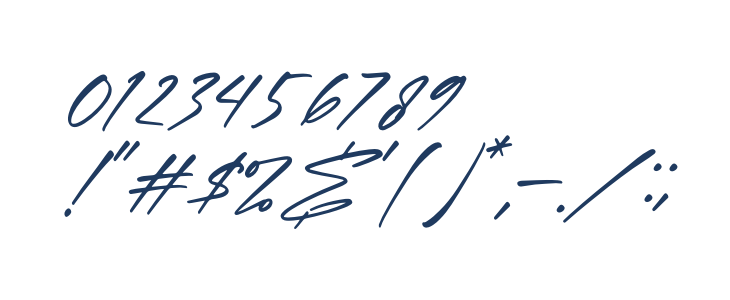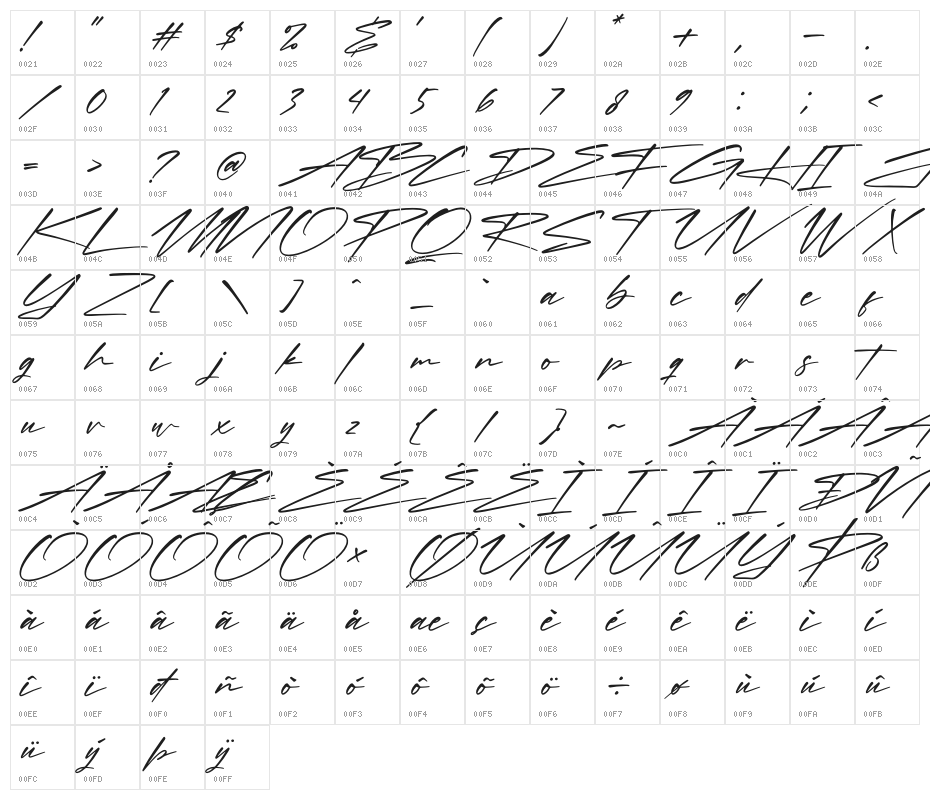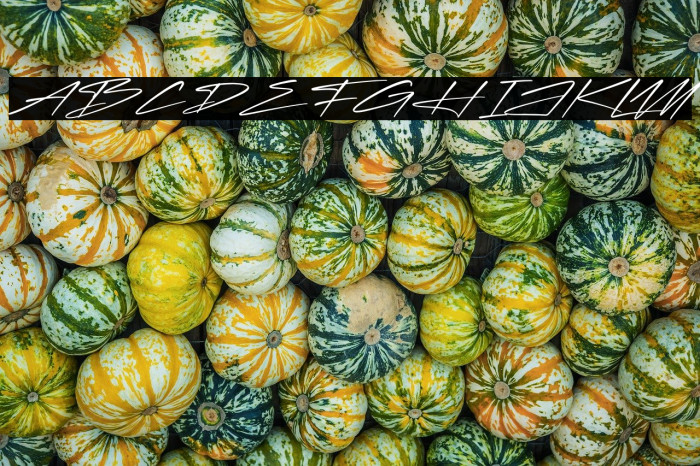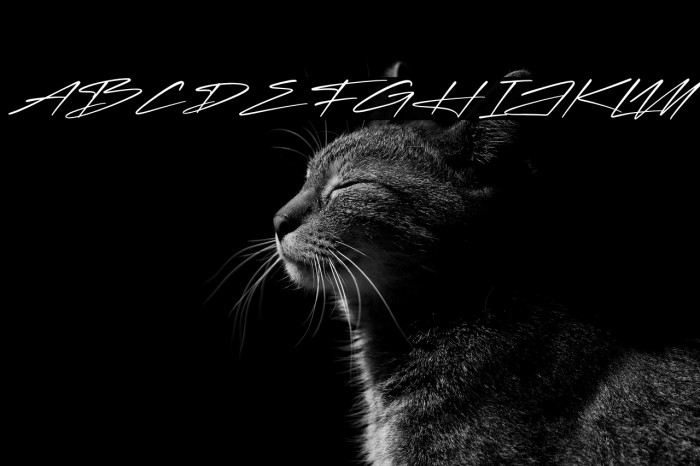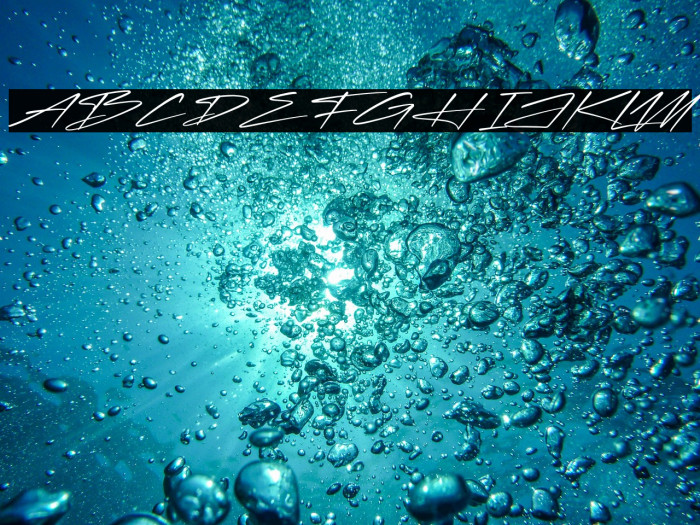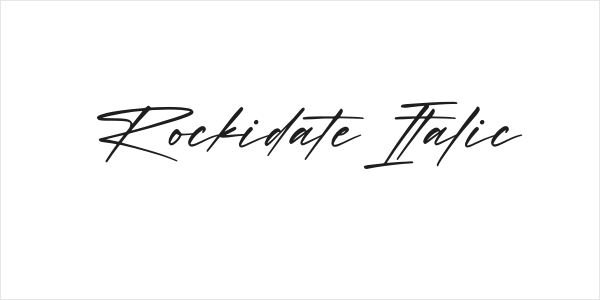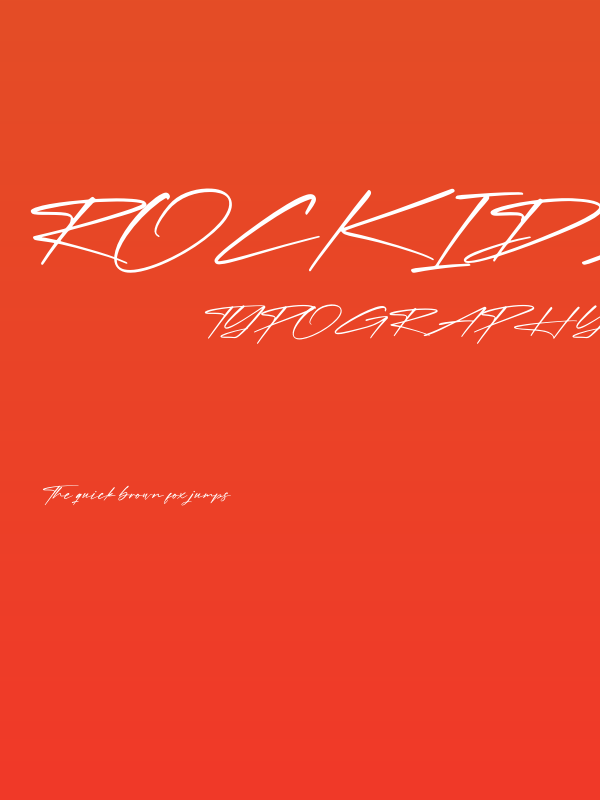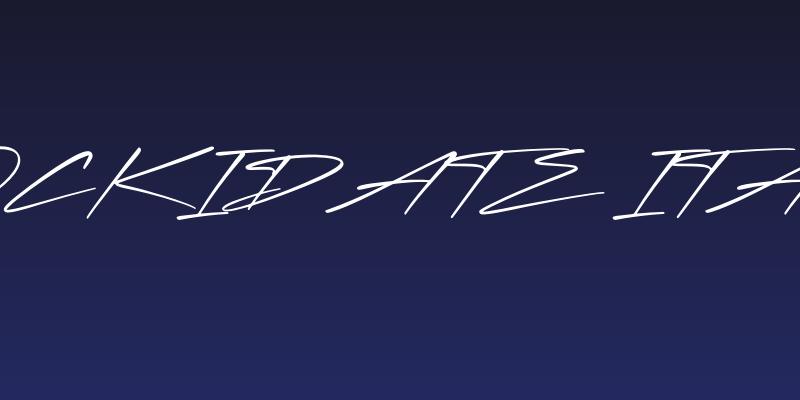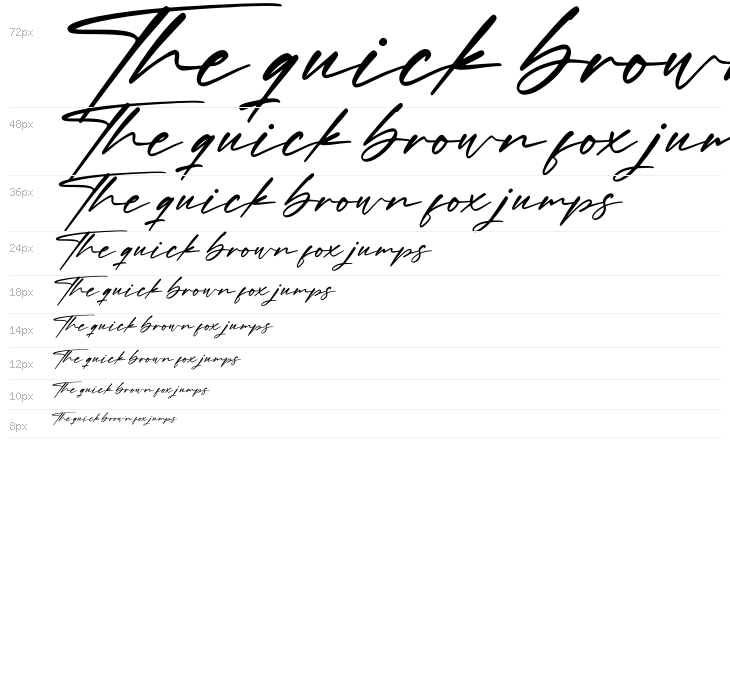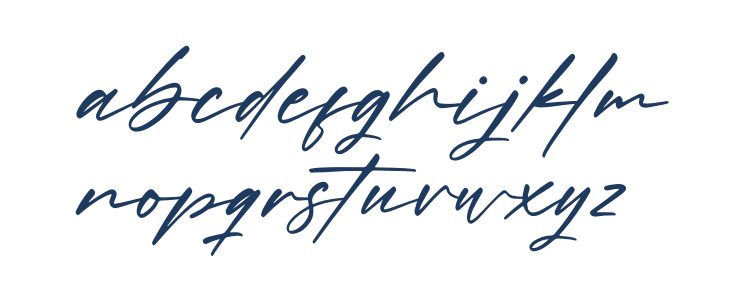
Rockidate Italic Font
Rockidate Italic Description
This font features a dynamic and fluid script style, characterized by its italicized, handwritten appearance. The letters are connected with smooth, flowing strokes, giving it an elegant and personal touch. The uppercase letters are bold and prominent, while the lowercase letters maintain a consistent flow, enhancing readability. The numerals and special characters are designed to match the overall aesthetic, ensuring a cohesive look across all text elements. This font exudes a sense of creativity and sophistication, making it ideal for projects that require a personal or artistic flair.
| Proposed Projects | Ideal for wedding invitations, personal branding, artistic projects, and creative advertising. |